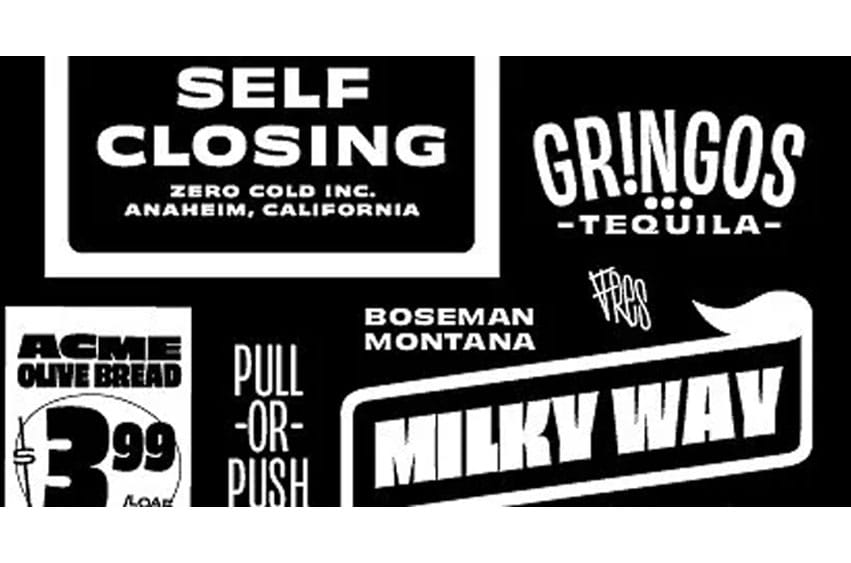
Obviously Font Family is a true masterpiece of exquisite beauty. Its precise and geometric shapes exude a sense of sophistication and elegance, while its attention to detail and fine lines convey a refined and delicate touch. Ideal for any design project that requires a touch of modernity and refinement.Typeface design courses